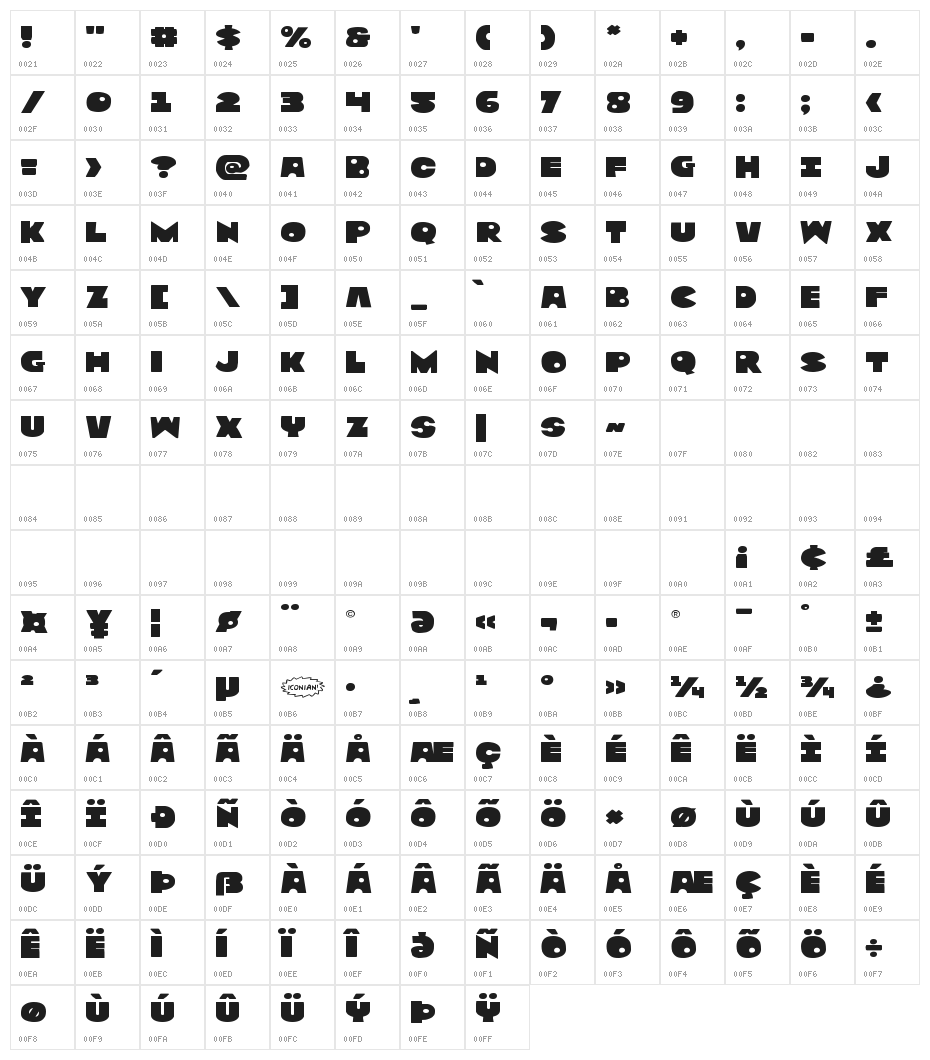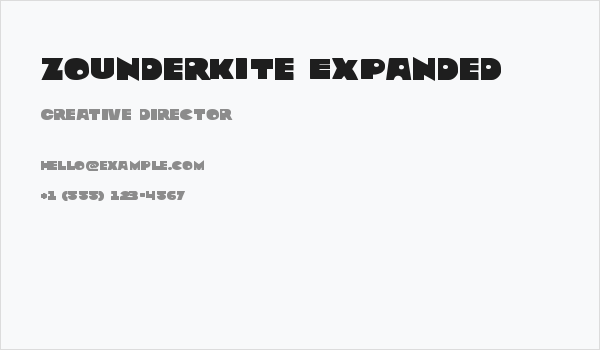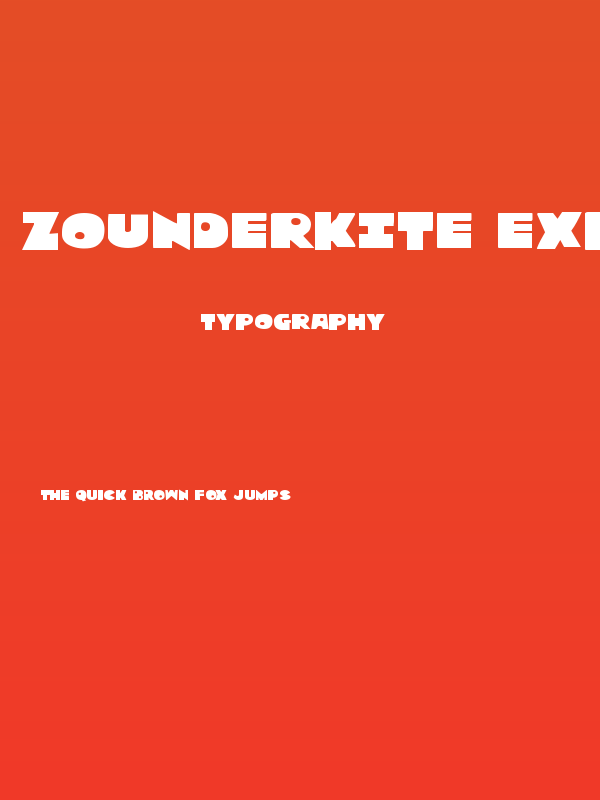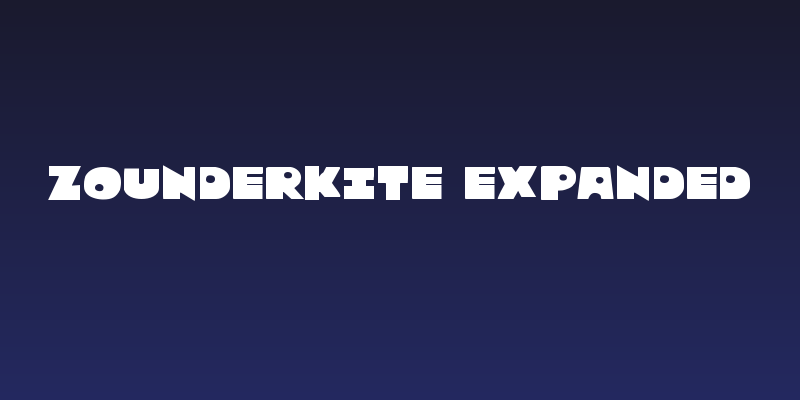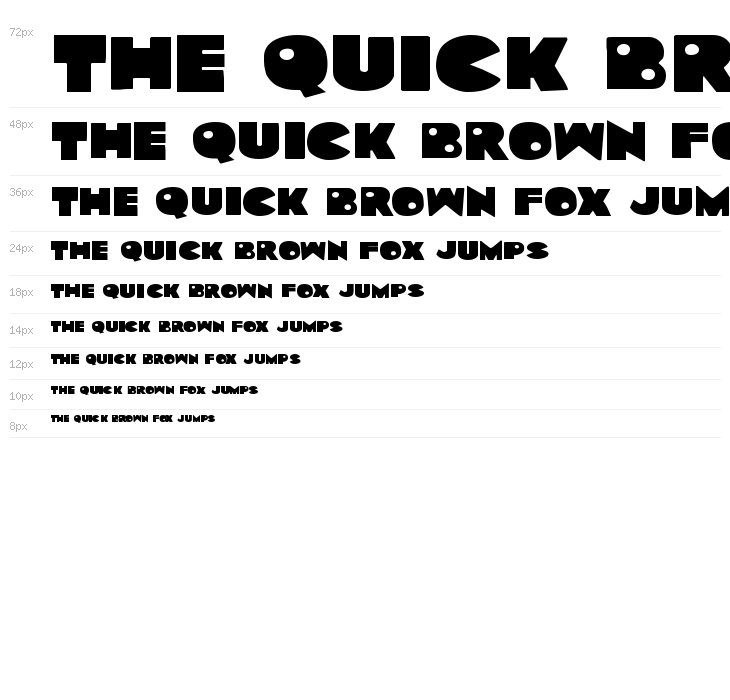
Zounderkite Expanded Font
Zounderkite Expanded Description
This font features a bold and playful design with thick, rounded characters that convey a sense of fun and creativity. The letters are uniformly wide, giving the font an expanded appearance that makes it stand out. The characters have a consistent stroke width, contributing to a cohesive and balanced look. The font includes both uppercase and lowercase letters, numerals, and a variety of special characters, making it versatile for different design needs. Its unique style is characterized by geometric shapes and a slightly retro vibe, making it suitable for eye-catching headlines and creative projects.
| Overall Style | Playful, Retro |
| Proposed Projects | Ideal for posters, logos, children's books, and any project requiring a fun, eye-catching typeface. |